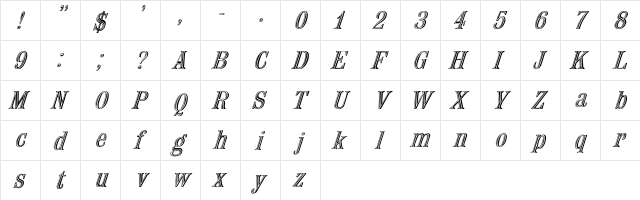
Powell-Italic Regular
Design Context for Powell-Italic Typeface
Powell-Italic takes a measured approach to typography — its balanced proportions and neutral character make it a reliable workhorse for both digital and print work. Its italic angle brings a sense of urgency and motion to the letterforms.